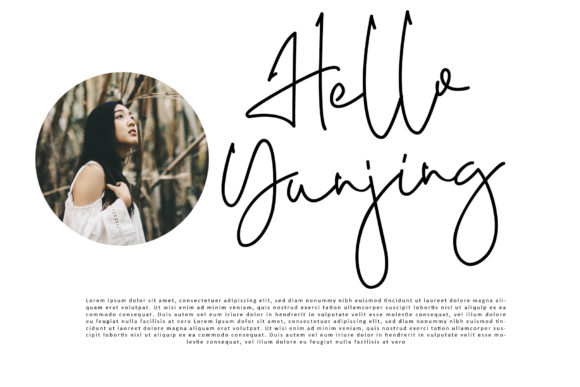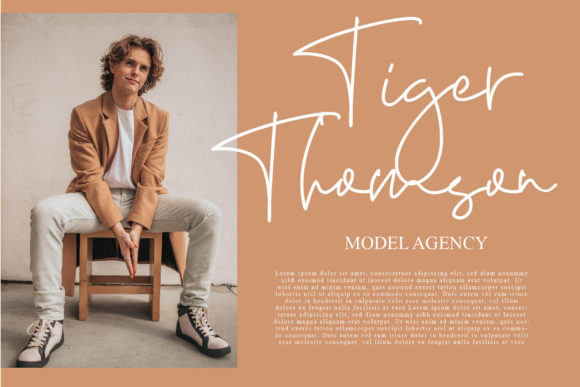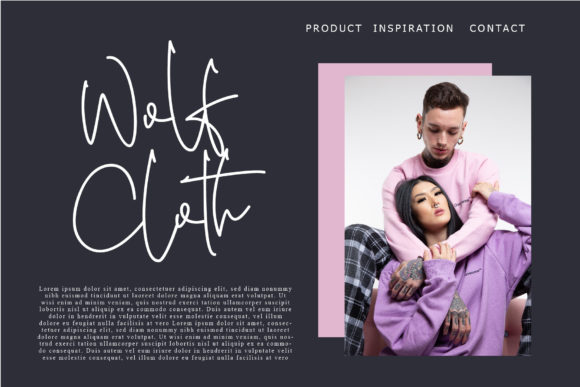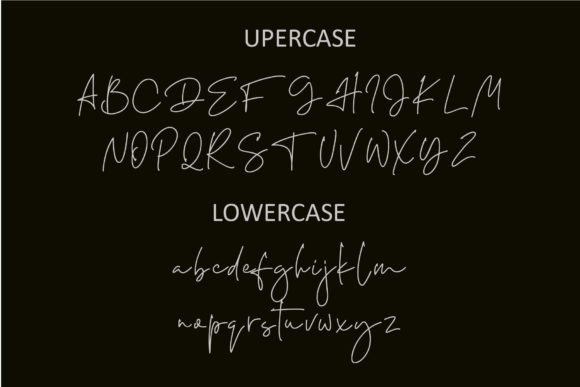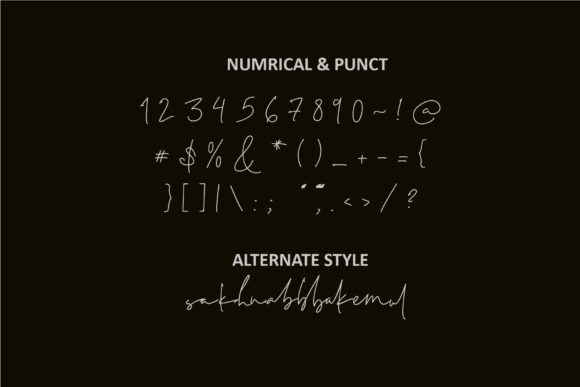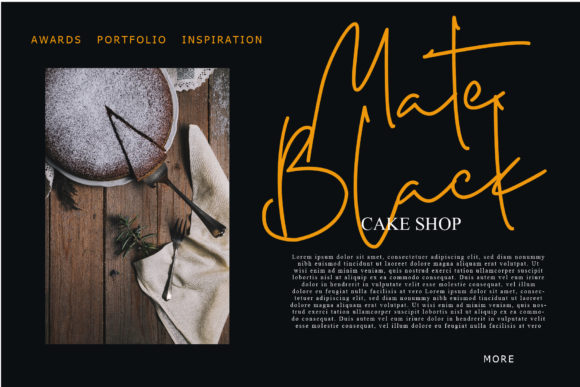
Introduction to Ngulos Kante Font
Imagine yourself standing at the edge of a creative project, searching for that perfect finishing touch. You’ve got the concept, the vision, and the inspiration – but something’s missing. That’s when you stumble upon the perfect design resource, one that elevates your entire project and leaves a lasting impression. For designers, finding the right font can be the difference between a good design and a great one.
Enter Ngulos Kante Font, a luxurious script font that’s sure to captivate your audience. With its thin and elegant lines, this font looks stunning on a variety of designs, from wedding invitations to thank you cards, and even logos. Whether you’re working on a high-end project or a personal creative endeavor, Ngulos Kante Font is the perfect addition to your design toolkit.
Key Features of Ngulos Kante Font
- Unique, hand-drawn design with a creative touch, ideal for artistic projects.
- Comes with a transparent background, allowing for seamless integration into various creative projects.
- Perfect for use in creative projects that require a touch of elegance and sophistication, such as logos, posters, and typography-based art.
Honest Review: Ngulos Kante Font
I recently stumbled upon the Ngulos Kante Font while searching for a unique design resource for a creative project. The font is available for free download, which was a major plus for me. Upon closer inspection, I noticed that the font features a transparent background, making it easy to use on various backgrounds.
- Unique and creative design style
- High quality and crisp font rendering
- Easy to use and customize
However, I did encounter a few limitations while using the font ⚠️:
- Not suitable for formal or corporate projects due to its creative style
- May not be compatible with all font styles or combinations
- Limited character set and glyphs
Overall, I was impressed with the Ngulos Kante Font’s unique design style and high quality rendering. While it may have some limitations, it’s definitely a great resource to have in your design arsenal, especially for creative projects or personal use.
The Ngulos Kante Font is a high-quality design resource perfect for creative projects. This free download offers a unique and stylish look that can elevate any design. With its transparent background, it’s easy to integrate into various design platforms.
For the best results, use the Ngulos Kante Font in combination with other high-quality design elements. Experiment with different font sizes, colors, and styles to create a unique look.
The Ngulos Kante Font is ideal for:
- Creating eye-catching headings and titles.
- Designing logos and brand identities.
- Adding a touch of elegance to digital products.
Alternatives to Ngulos Kante Font
Pacifico is a high-quality, elegant script font ideal for creative projects, such as wedding invitations, greeting cards, and advertising materials. It features a transparent background, making it perfect for designers who need a clean and modern look. Pacifico is a great alternative to Ngulos Kante Font for designers who want a sophisticated and refined design resource.
Great Vibes is a free download, high-quality font that is perfect for designers working on creative projects, such as magazine covers, posters, and social media graphics. It features a unique and playful style, making it a great alternative to Ngulos Kante Font for designers who want a fun and energetic design resource.
Dancing Script is a high-quality, elegant script font that is ideal for designers working on creative projects, such as branding, packaging, and advertising materials. It features a transparent background and a beautiful, flowing script style, making it a great alternative to Ngulos Kante Font for designers who want a sophisticated and stylish design resource.
Alex Brush is a high-quality, elegant script font that is perfect for designers working on creative projects, such as invitations, greeting cards, and social media graphics. It features a beautiful, flowing script style and a transparent background, making it a great alternative to Ngulos Kante Font for designers who want a refined and elegant design resource.
Creative Projects with Ngulos Kante Font
Project 1: Vintage Travel Poster
Create a unique travel poster using the Ngulos Kante Font to add a touch of elegance and sophistication. The font’s distressed look will give your poster a vintage feel.